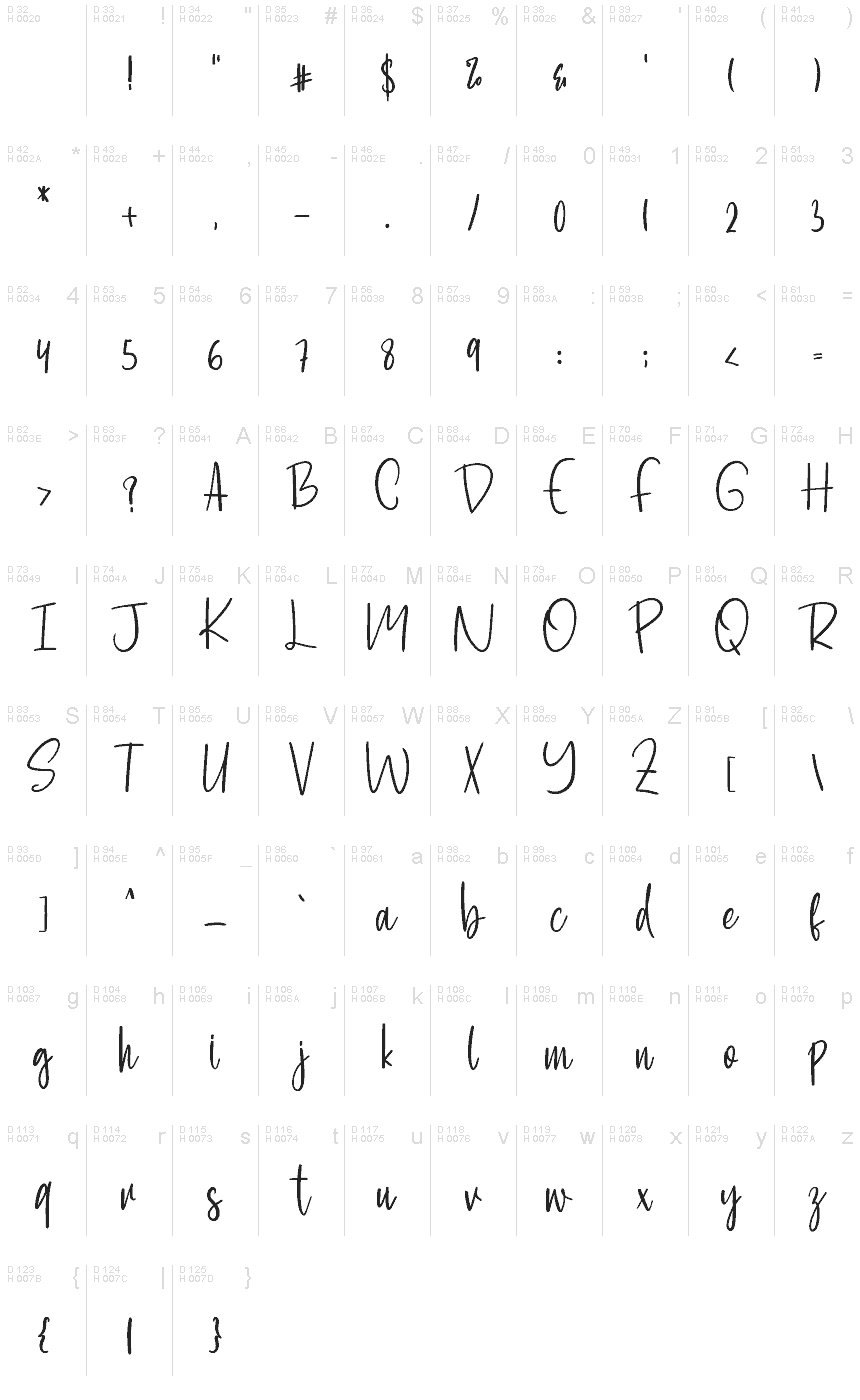
Notebook Christmas
Notebook Christmas font by Goodrichees captures a delicate handwritten style with a condensed width. The elegant and flowing letters showcase casual elegance, making each word written in this creative font exude an expressive personality. Classic calligraphy blends perfectly with graceful letterforms for impressive results.